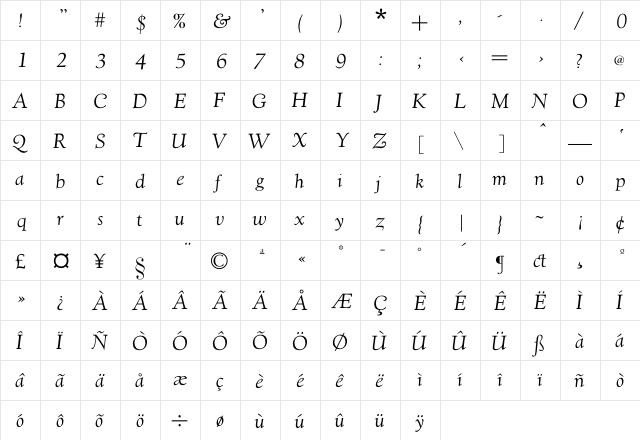
GoudyVillage ZL-Itali Font Preview
GoudyVillage ZL-Itali
Design Context for GoudyVillage Typeface
GoudyVillage takes a measured approach to typography — its balanced proportions and neutral character make it a reliable workhorse for both digital and print work.